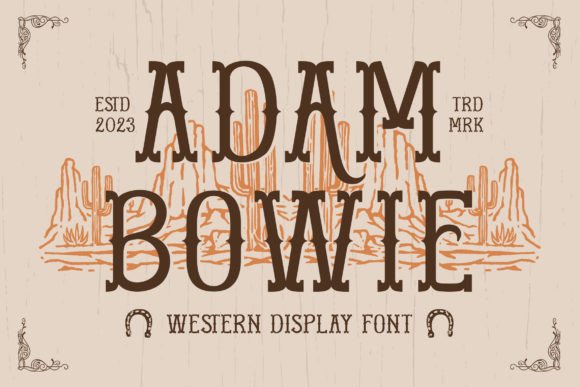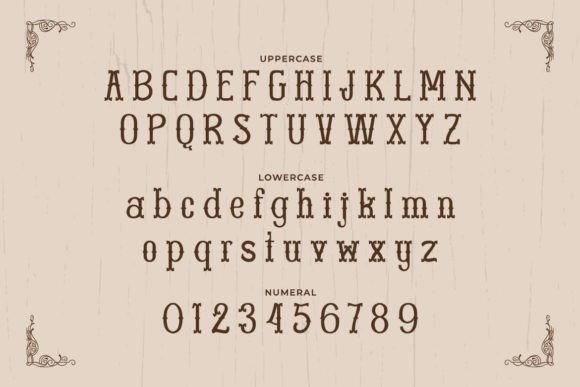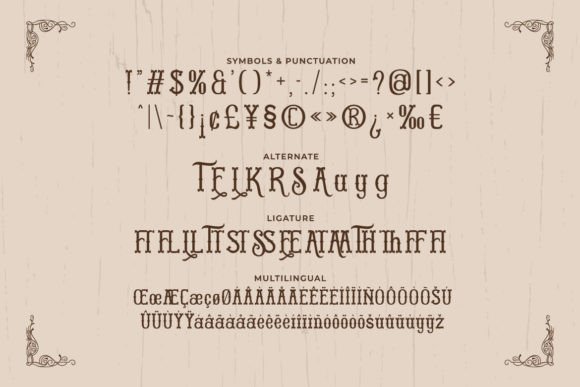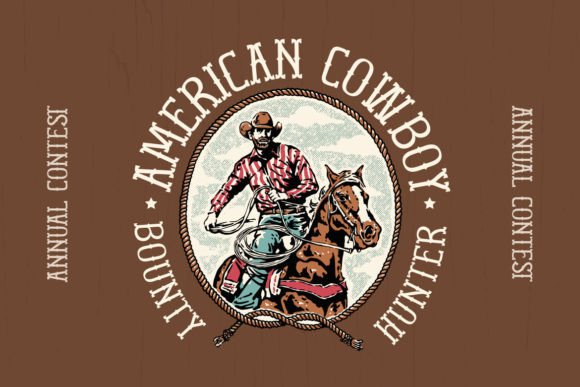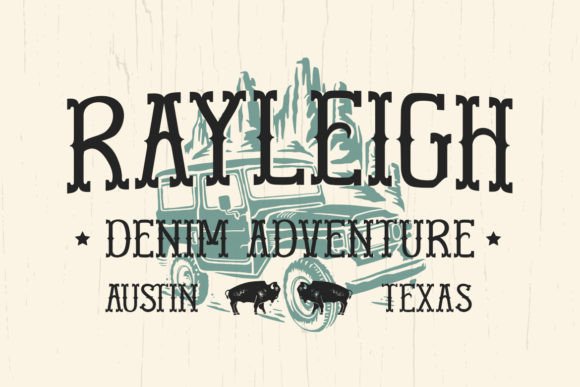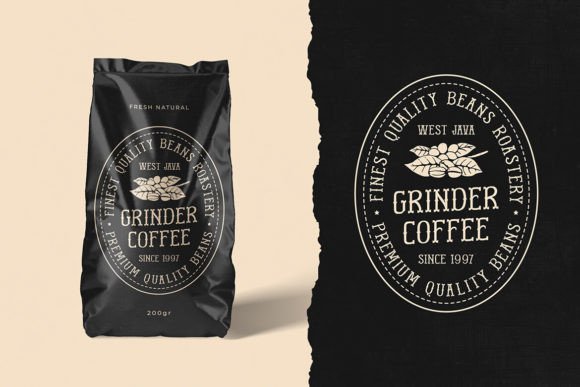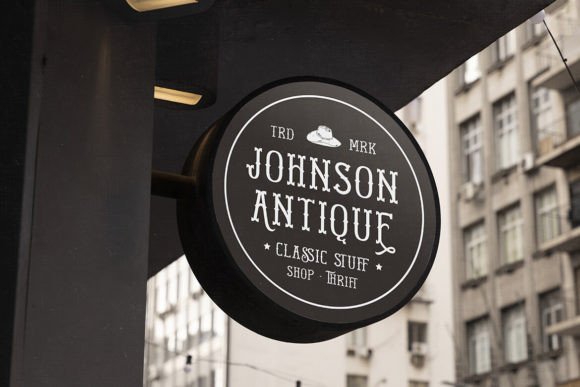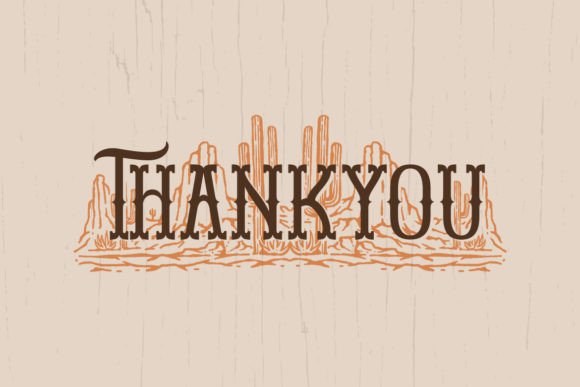
Adam Bowie Font
About Adam Bowie Font
Saddle up for the Wild West with “Adam Bowie” – a Western display font that captures the rugged spirit of the frontier!
With its bold and cowboy-inspired letterforms, “Adam Bowie” brings a touch of Western charm to any project. Each character is meticulously designed to infuse your designs with a sense of adventure, making it perfect for Western-themed branding, rustic posters, rodeo events, and more.
Embrace the frontier energy of “Adam Bowie” as it effortlessly enhances your designs. Whether you’re crafting daring saloon logos, captivating cowboy art, rugged event banners, or authentic social media content, this font will captivate your audience with its Western and adventurous style.
Saddle up with “Adam Bowie” and let your designs echo the rugged beauty of the Wild West!
– Uppercase
– Lowercase
– Symbols & Punctuation
– Numeral
– Ligature
– Alternate
– Multilingual Support